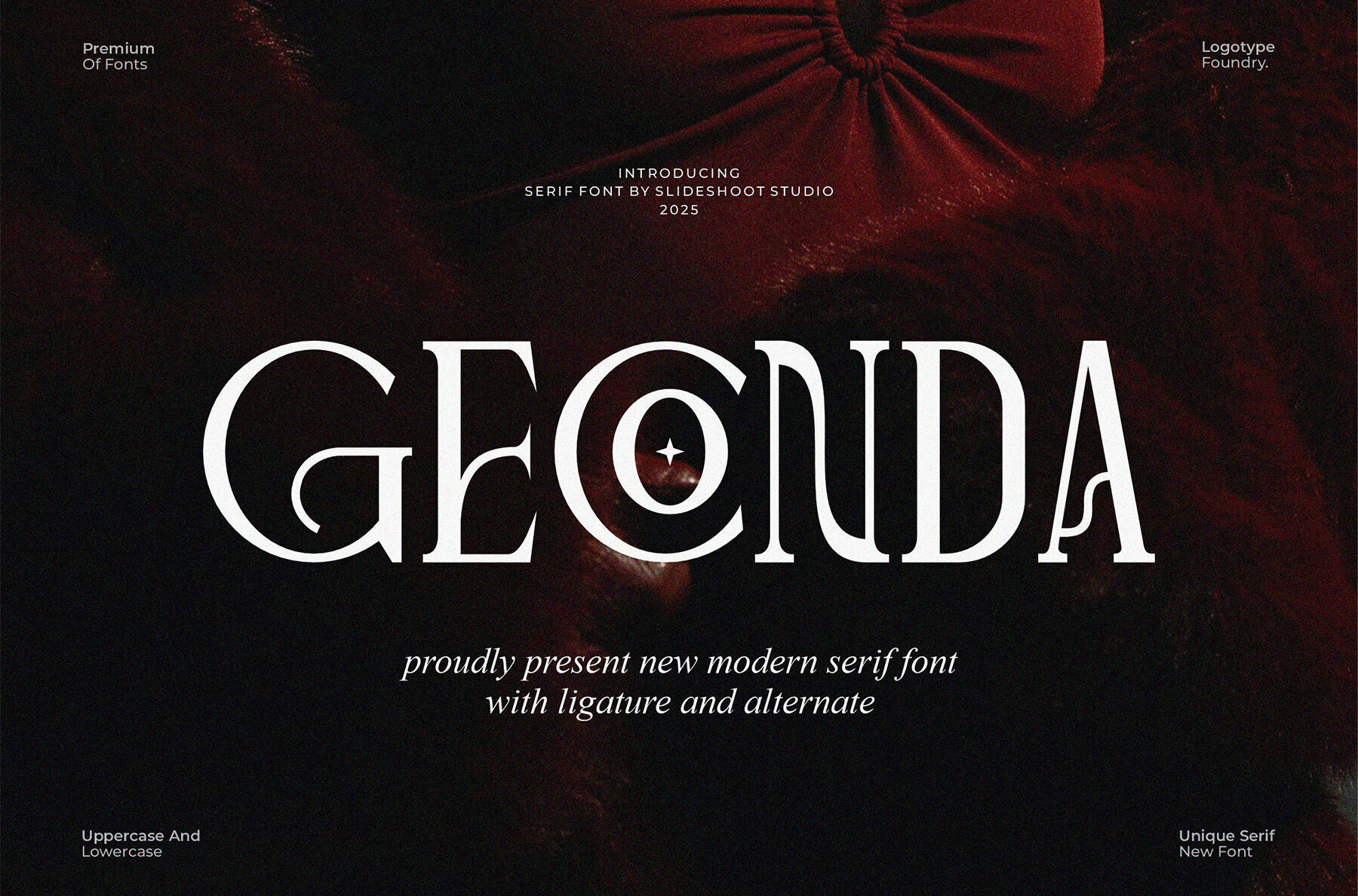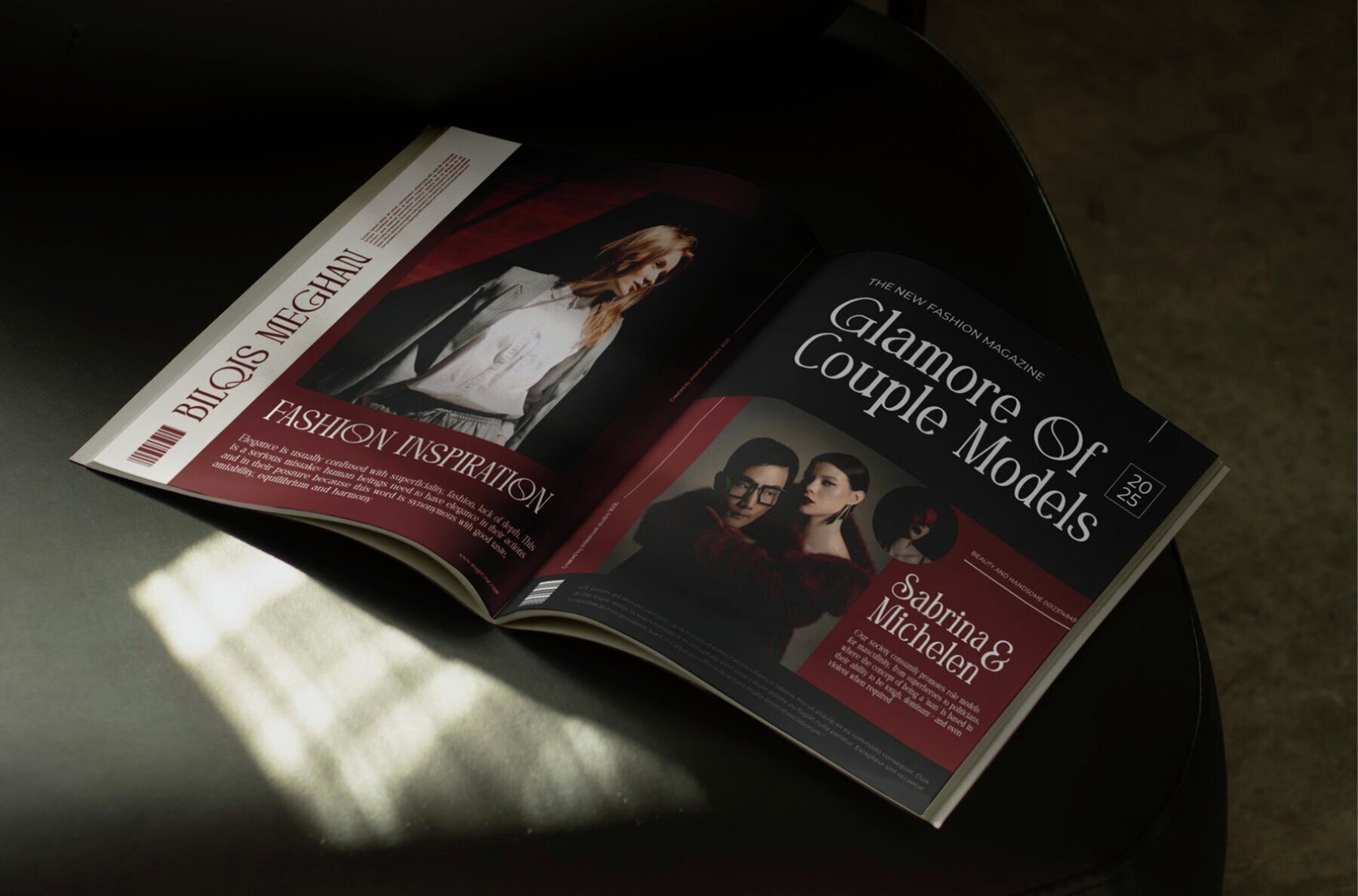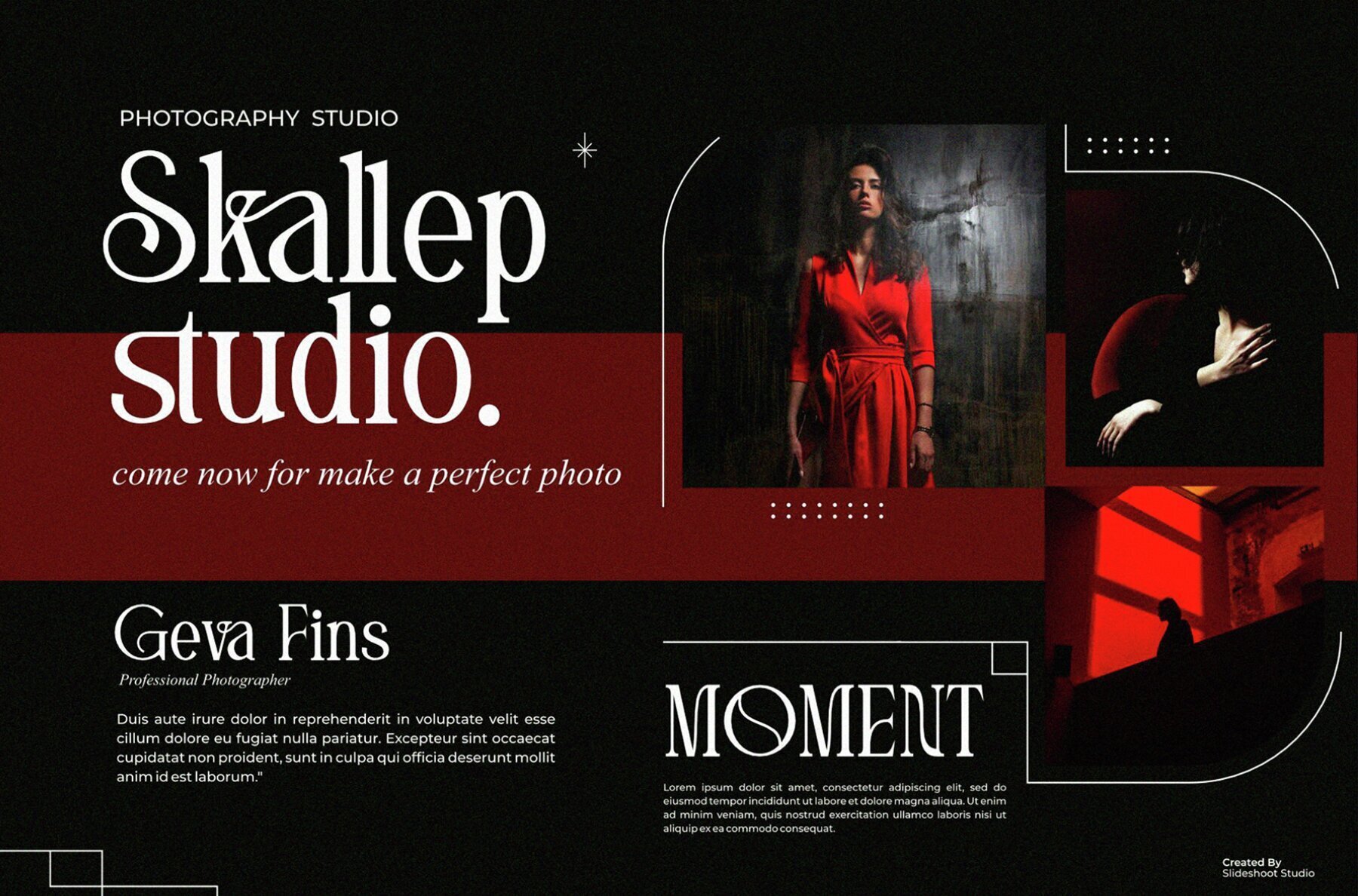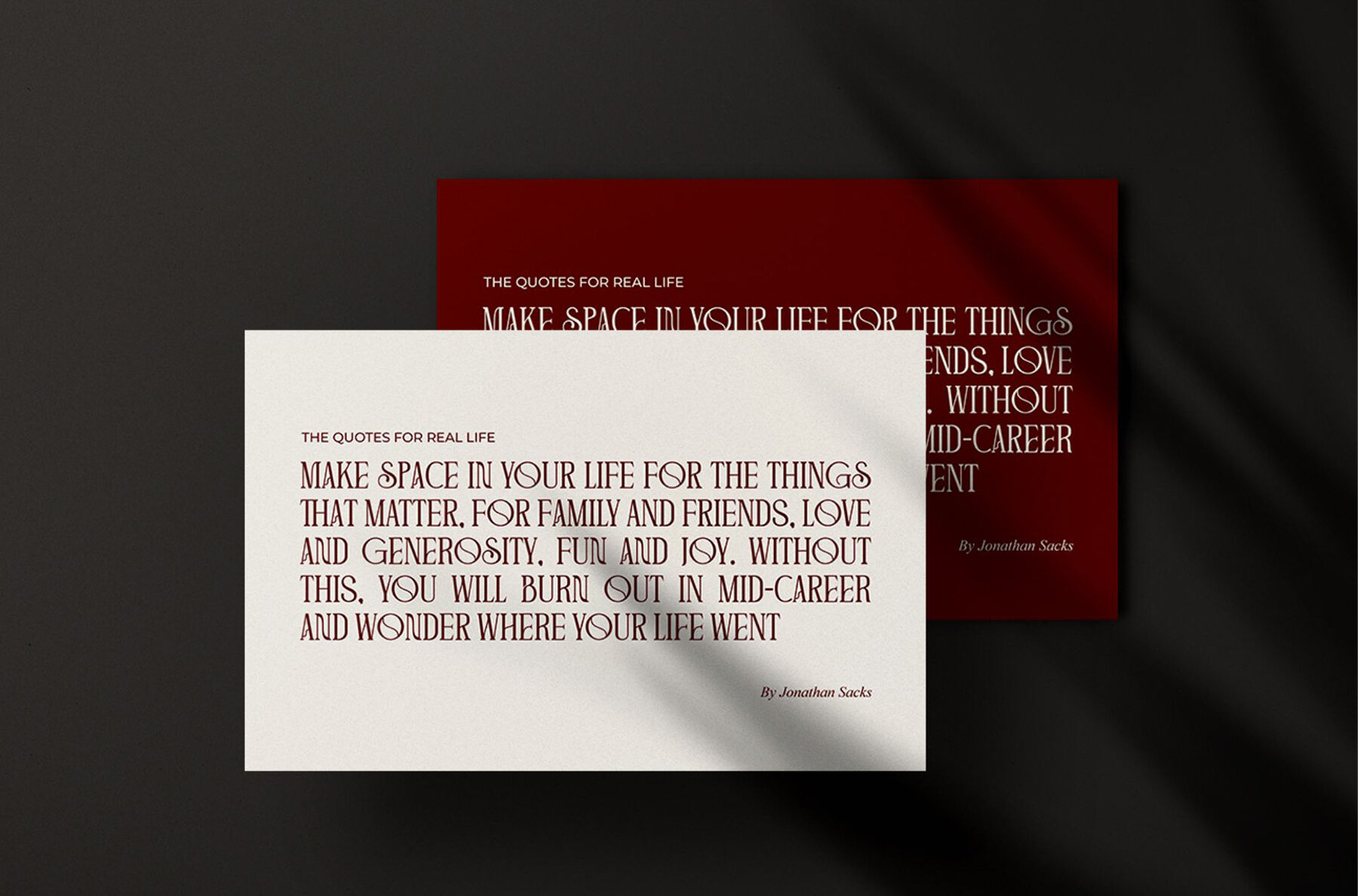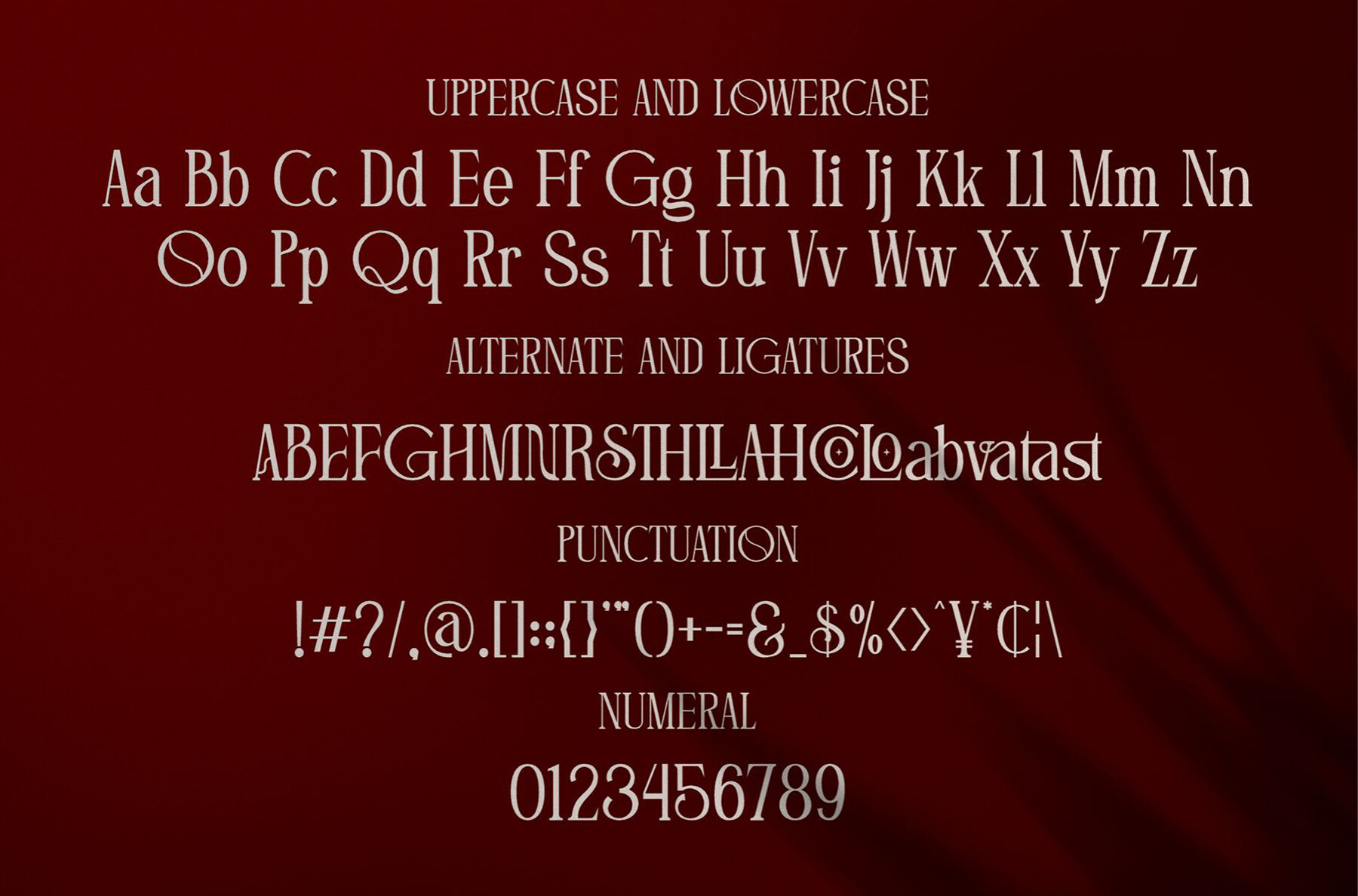
Geconda Font
Geconda
Geconda is a serif font that seamlessly blends modern aesthetics with a distinctive wood-inspired character. Designed for versatility, it enhances invitation cards, company logos, movie titles, business cards, book titles, brand identities, and more. If you're looking to inject a touch of uniqueness into your designs, Geconda is the ideal choice.Geconda by Slide Font